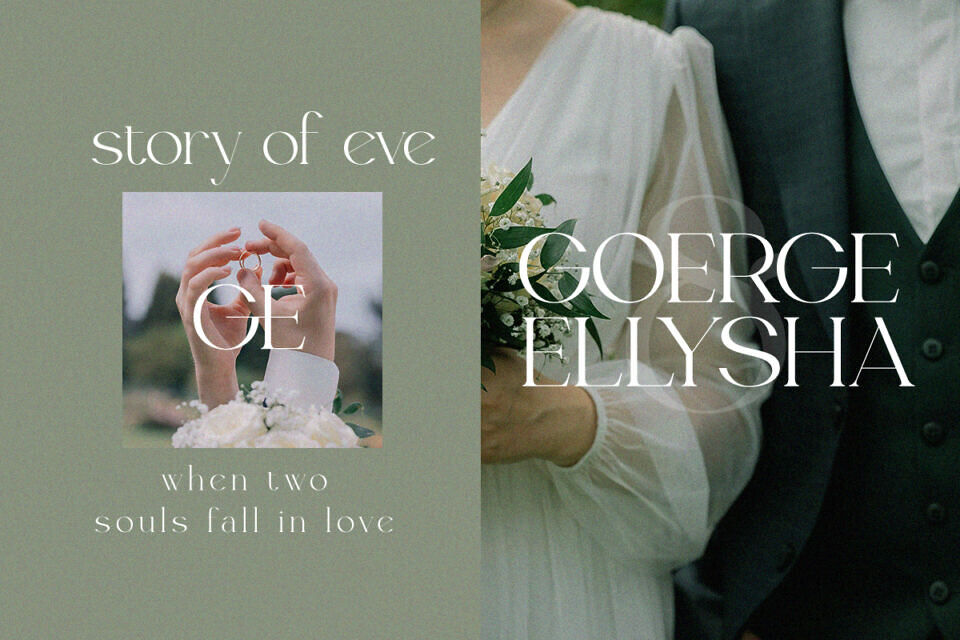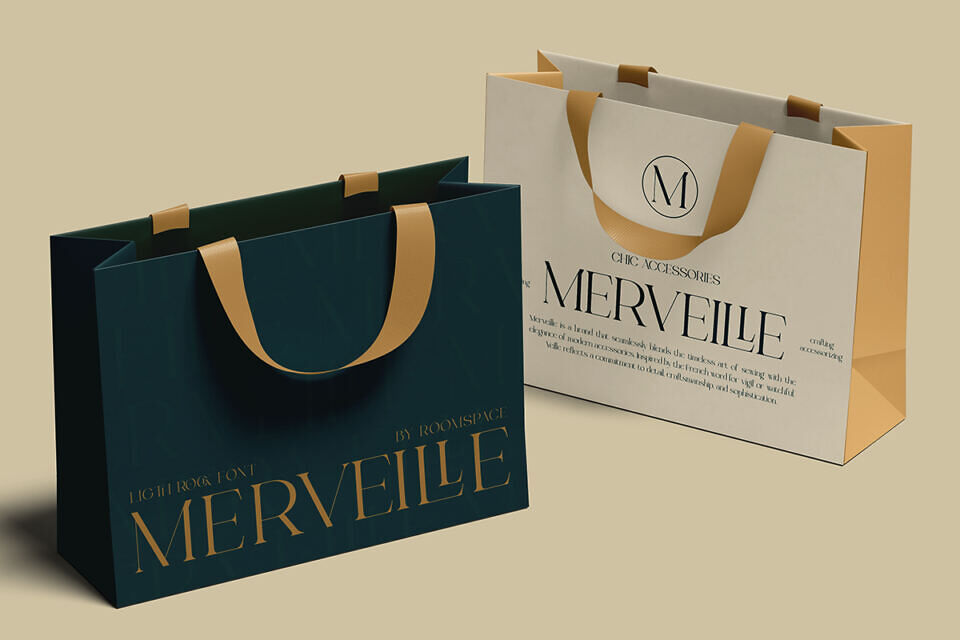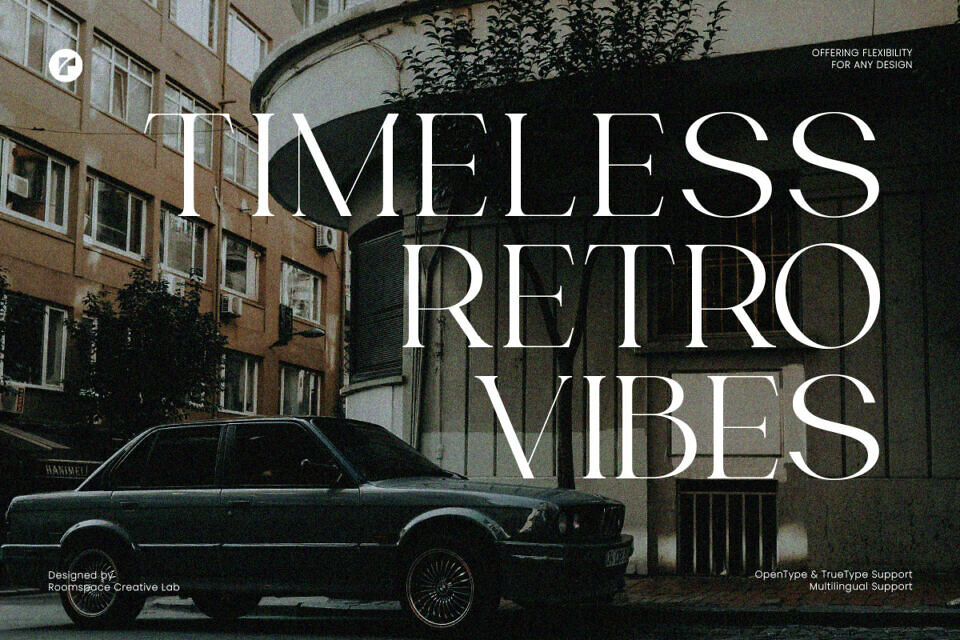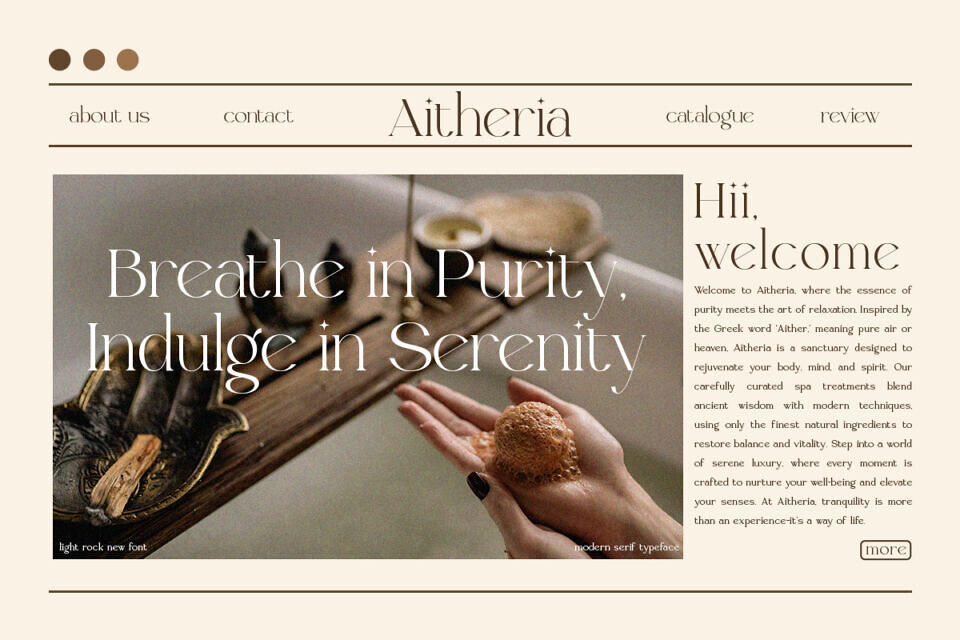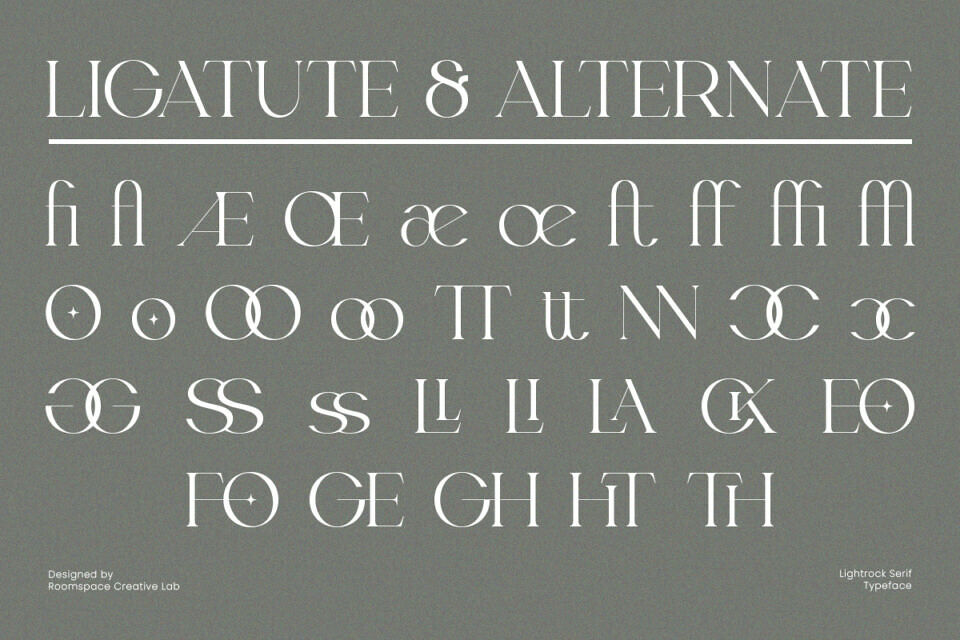
Light Rock is a refined serif font that flawlessly blends modern elegance with timeless sophistication. Designed to elevate your creative projects, this versatile typeface exudes luxury and class, making it an ideal choice for logos, branding, editorial layouts, wedding invitations, and upscale social media graphics.
With its sleek lines and balanced proportions, Light Rock delivers a premium aesthetic that is both stylish and sophisticated. Its elegant serif details bring a polished yet contemporary feel to any design, making it a perfect choice for those who value refinement and creativity.